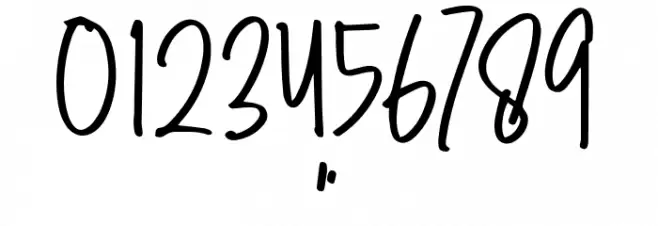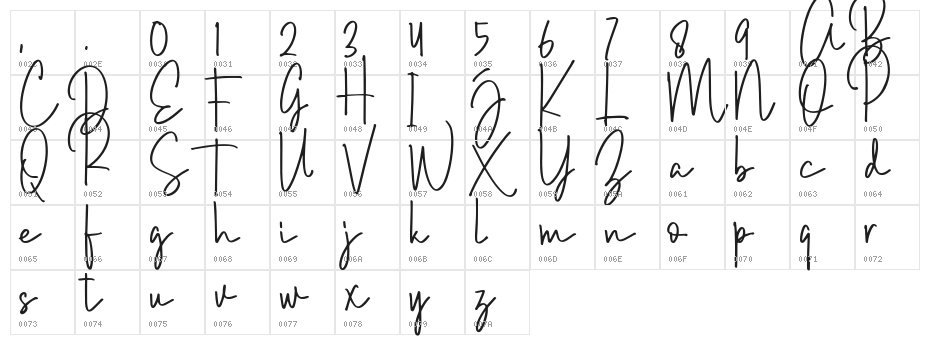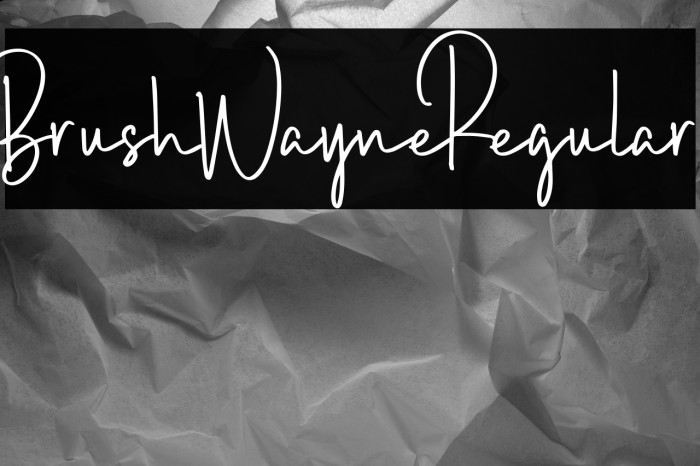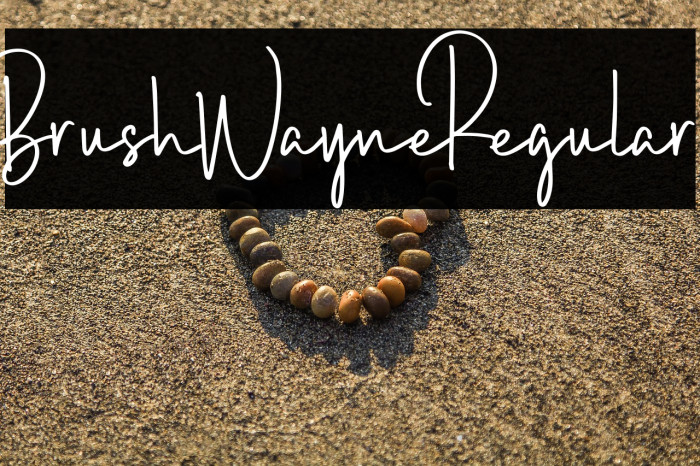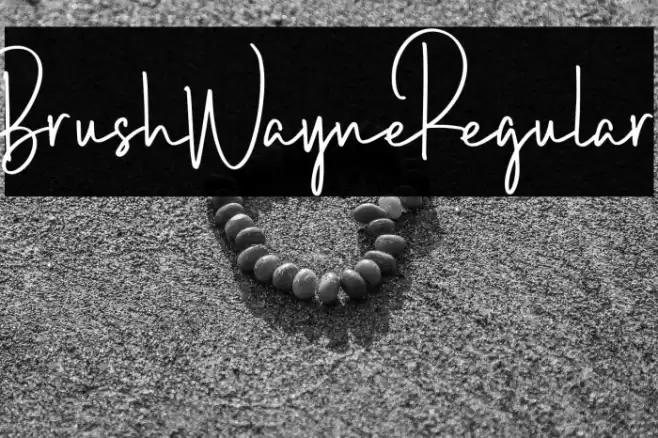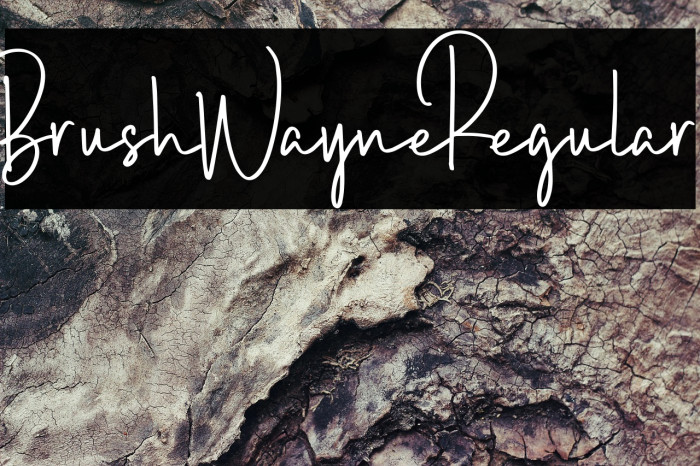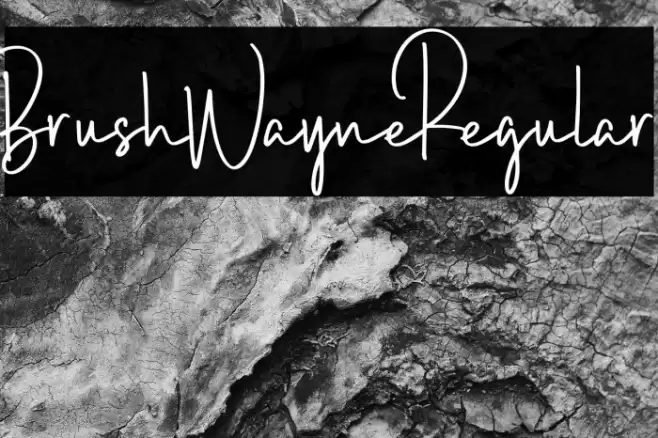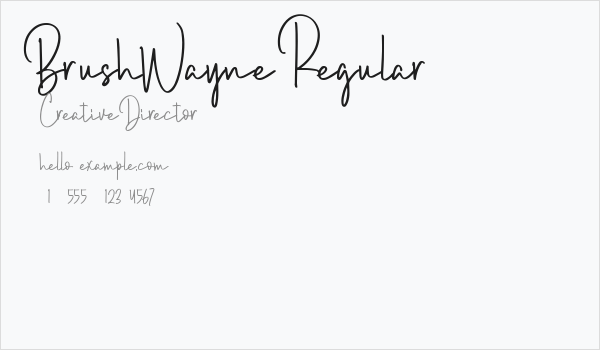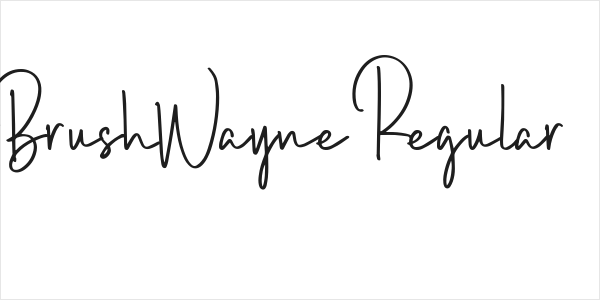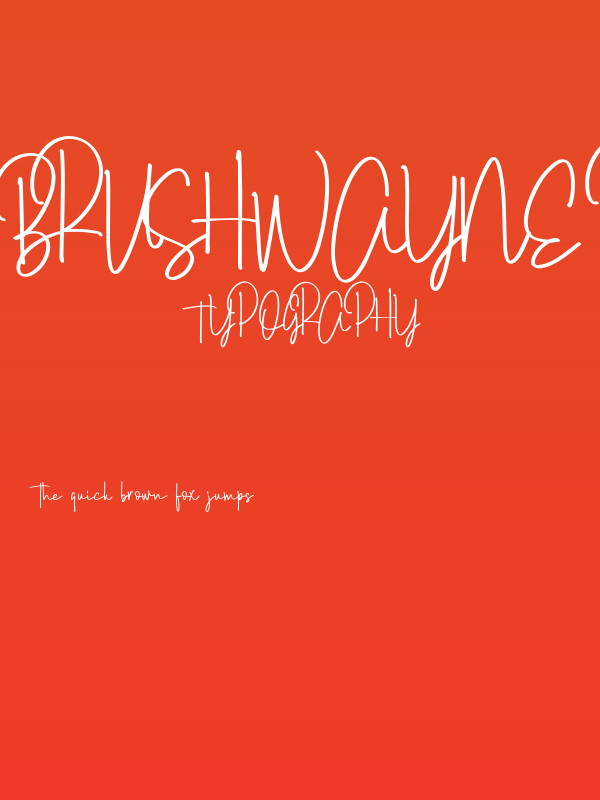
BrushWayne-Regular Font
BrushWayne-Regular Description
This font exudes a playful and artistic vibe with its handwritten style. The uppercase letters are tall and slender, with a slight slant that adds a dynamic feel. The lowercase letters are more fluid and connected, resembling a casual script. Numbers are bold and slightly rounded, maintaining the handwritten aesthetic. The special characters are consistent with the overall style, adding a touch of whimsy. This font is perfect for projects that require a personal, creative touch.
| Proposed Projects | Ideal for greeting cards, invitations, personal branding, and creative projects. |